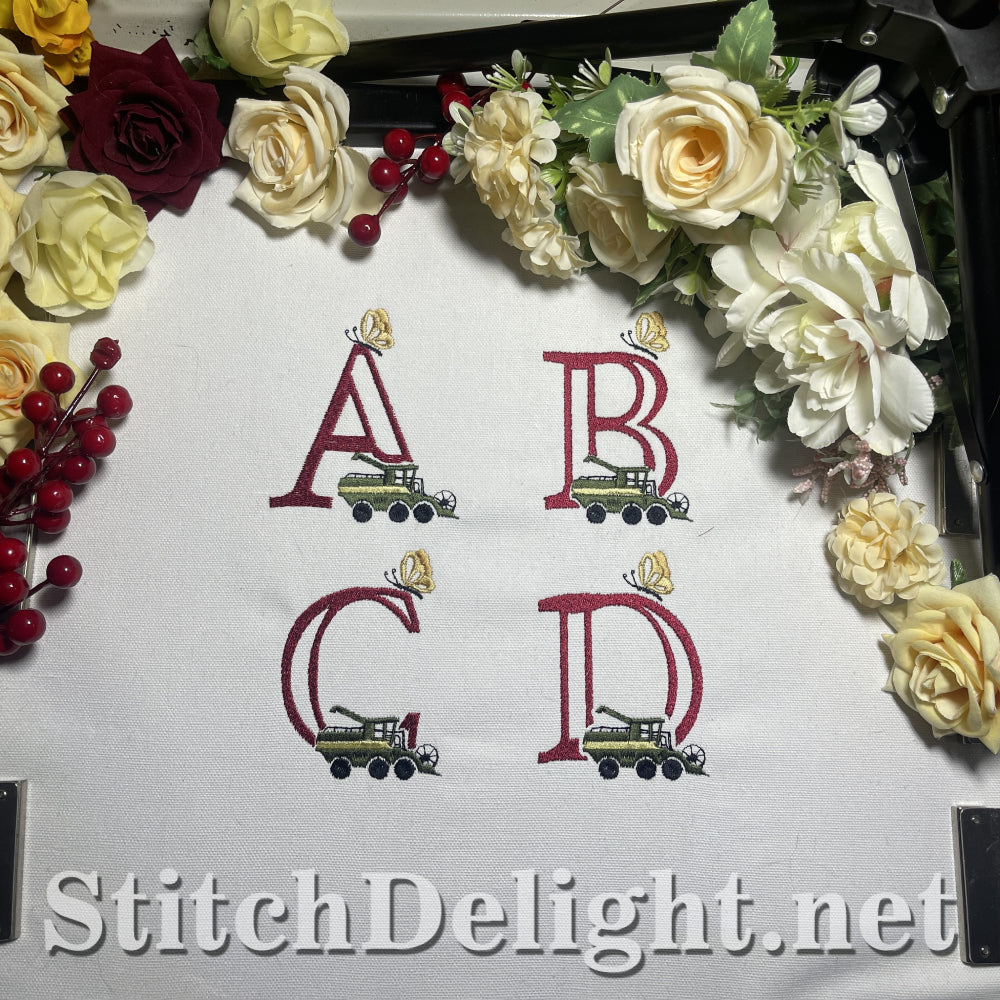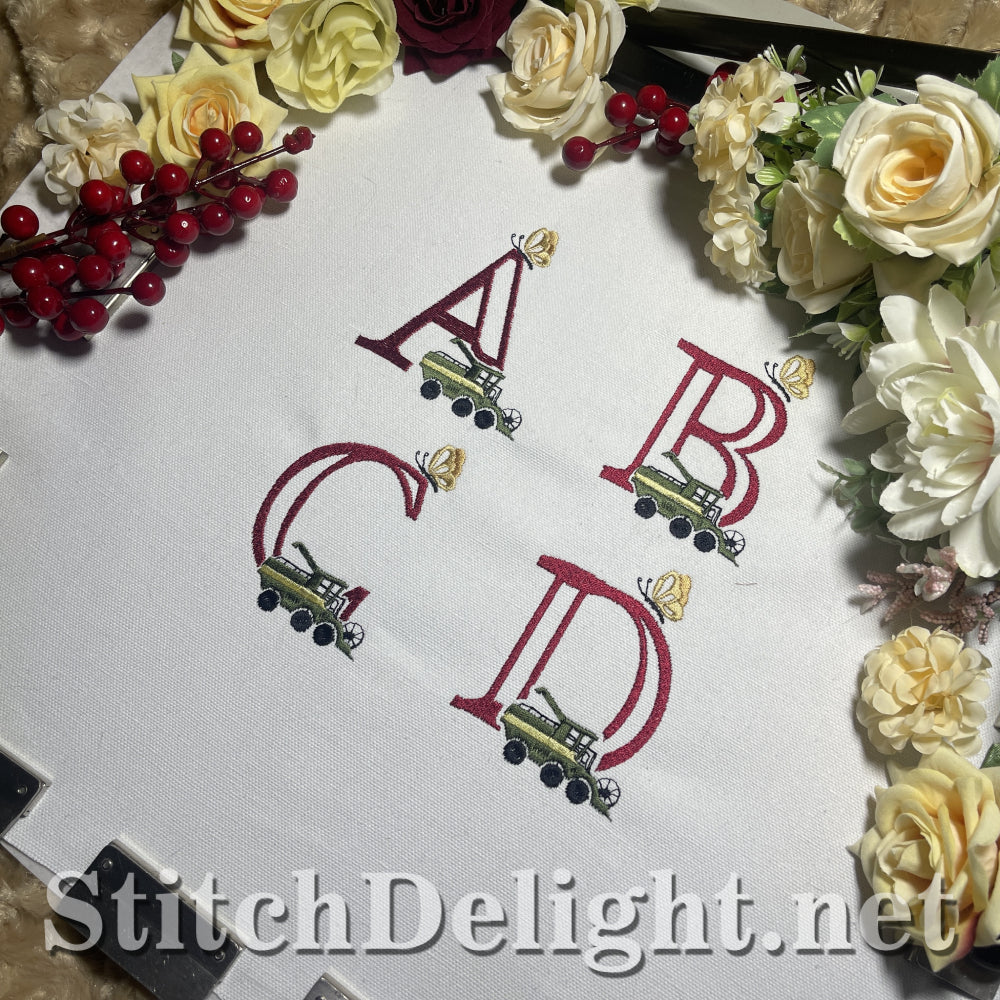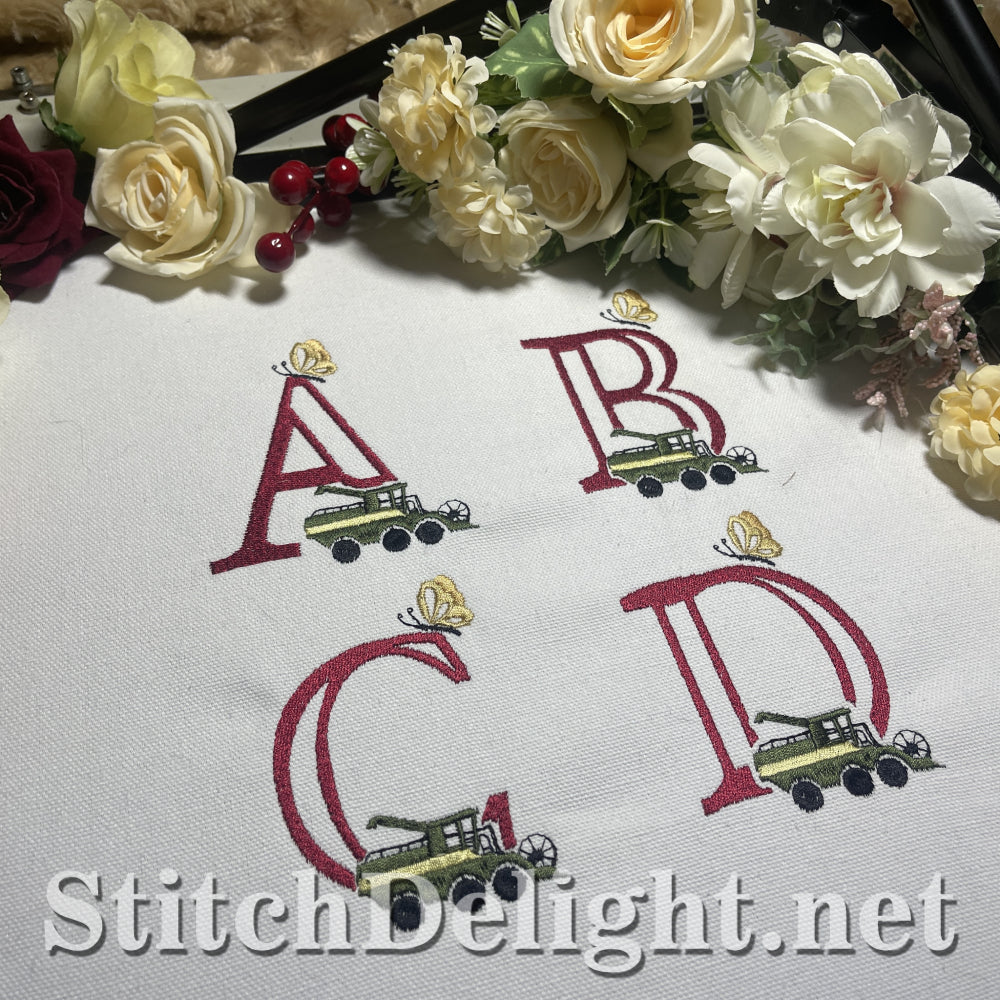
SDS3321 Harvest Font
Farm Fresh 100% Organic: Celebrating the dedication and effort of hardworking farmers
worldwide, this design symbolizes growth and the achievement of a bountiful harvest. The combine harvester is shown in action, gathering crops ready to be processed and delivered to your table. combine this font with the matching SDS3322 Crops font for a unique twist to the design, both fonts were designed with one another in mind to match perfectly, though each font could also be used individually.